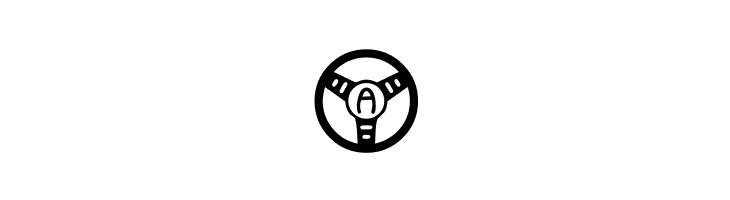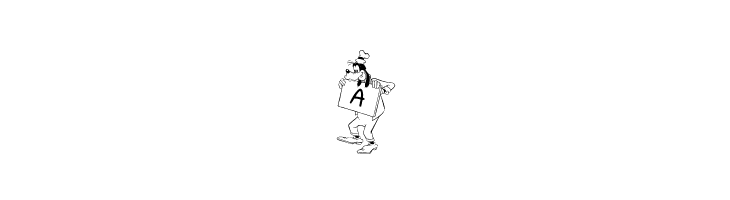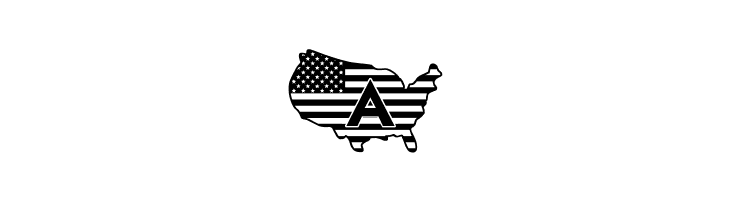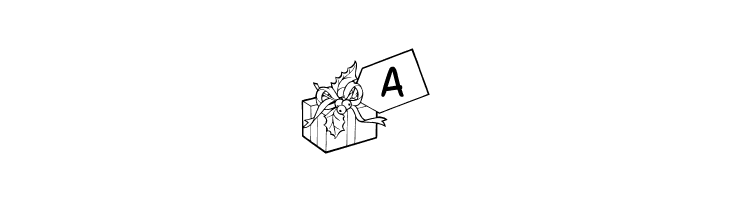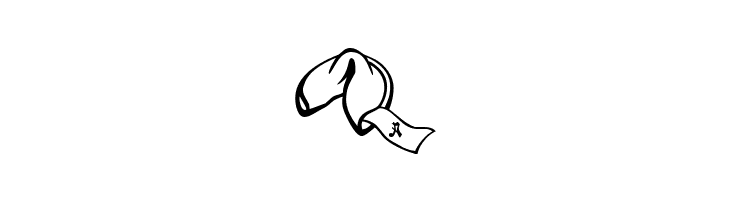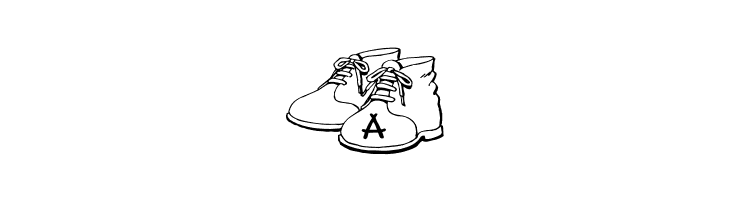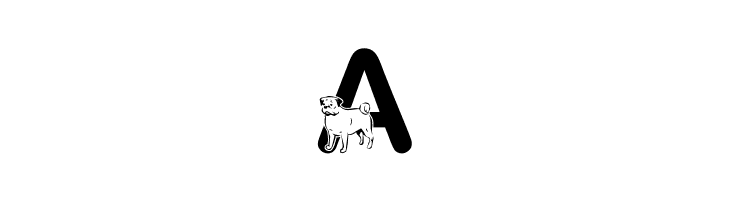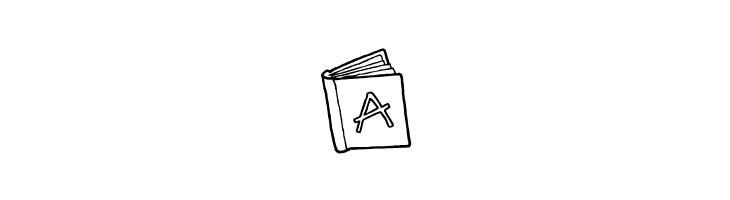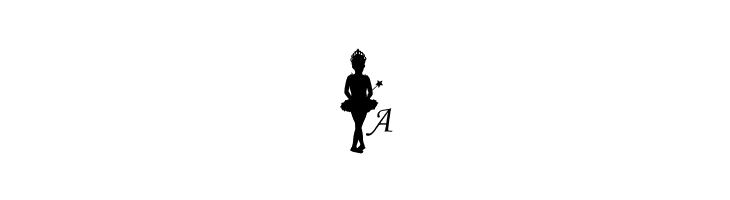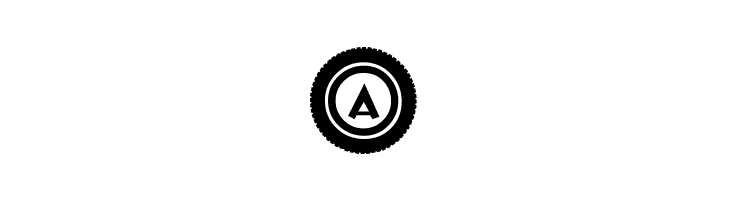
A bold, impactful font ideal for headlines and banners.
A playful font with bee motifs integrated into bold, rounded characters.
A whimsical font with characters embedded in bronzed shoe illustrations.
A whimsical font with letters integrated into penguin illustrations, perfect for playful designs.
A whimsical, decorative font with letters embedded in playful character illustrations.
A decorative font with characters enclosed in Celtic crosses, blending tradition with modern style.
A playful font with bold letters and integrated cartoon dog illustrations.
A playful, peep-themed decorative font ideal for Easter projects.
A playful font with characters inside golf ball designs, ideal for sporty themes.
A playful and whimsical design featuring fortune cookies with slips of paper.
A decorative font with letters encased in gift box illustrations, perfect for festive designs.
A playful font with characters resembling handprints, ideal for fun and informal projects.
A playful, globe-themed decorative font with bold characters.
A decorative font with characters inside a US map silhouette featuring the American flag.
A bold, decorative font with whimsical goose illustrations integrated into each letter.
A playful font with letters inside open book illustrations, perfect for creative projects.
A playful, cartoon-themed font with each letter displayed on a character.
A whimsical serif font with decorative glasses, perfect for magical themes.
A whimsical font with characters embedded in truck designs, perfect for playful projects.
A playful font with letters inside cartoon elephants, perfect for fun and creative projects.
A bold, playful font with handprint motifs on each letter.
A bold, sans-serif font with characters encased in a Statue of Liberty-themed emblem.
A playful font with characters enclosed in steering wheels, perfect for automotive-themed designs.
A bold, decorative font with letters enclosed in tire-like circles.
A playful font with letters inside cartoonish hand shapes, perfect for creative projects.
A decorative font with characters inside sheriff badge shapes, perfect for Western-themed designs.
A decorative font with letters inside a pregnant silhouette, ideal for maternity themes.
A whimsical, castle-themed decorative font ideal for magical and fantasy projects.
A playful font with characters enclosed in alarm clock designs, ideal for creative projects.
A whimsical and elegant script font with flowing, cursive letters.